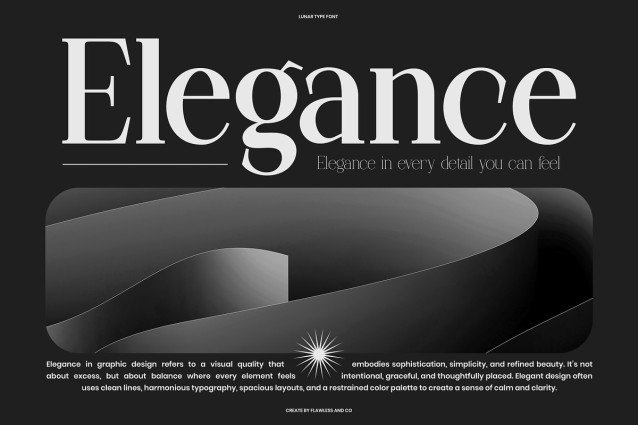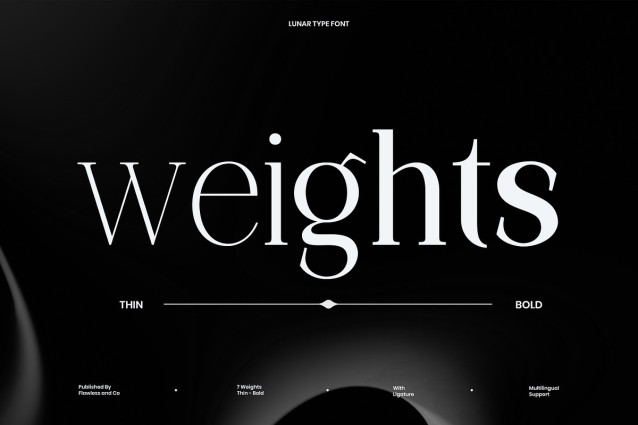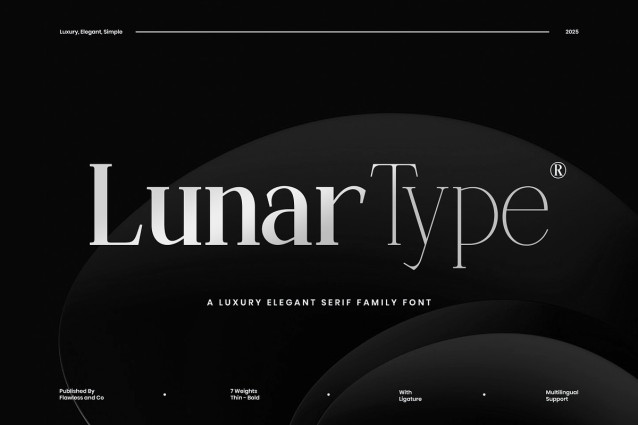
Lunartype Font
Lunar Type Font is a refined serif family font that embodies the essence of sophistication, minimalism, and modern class. Designed with precision and grace, Lunar Type features a harmonious balance of thin and bold weights, making it perfect for brands, editorials, and high-end visual identities. Each letterform is crafted to reflect timeless beauty and quiet confidence — offering a smooth reading experience while elevating your design with understated luxury. From fashion lookbooks to elegant branding and minimalist design systems, Lunar Type delivers a premium typographic experience. Whether you’re building a luxury label, designing packaging, or crafting magazine layouts, Lunar Type gives your work a sense of calm authority and visual elegance.